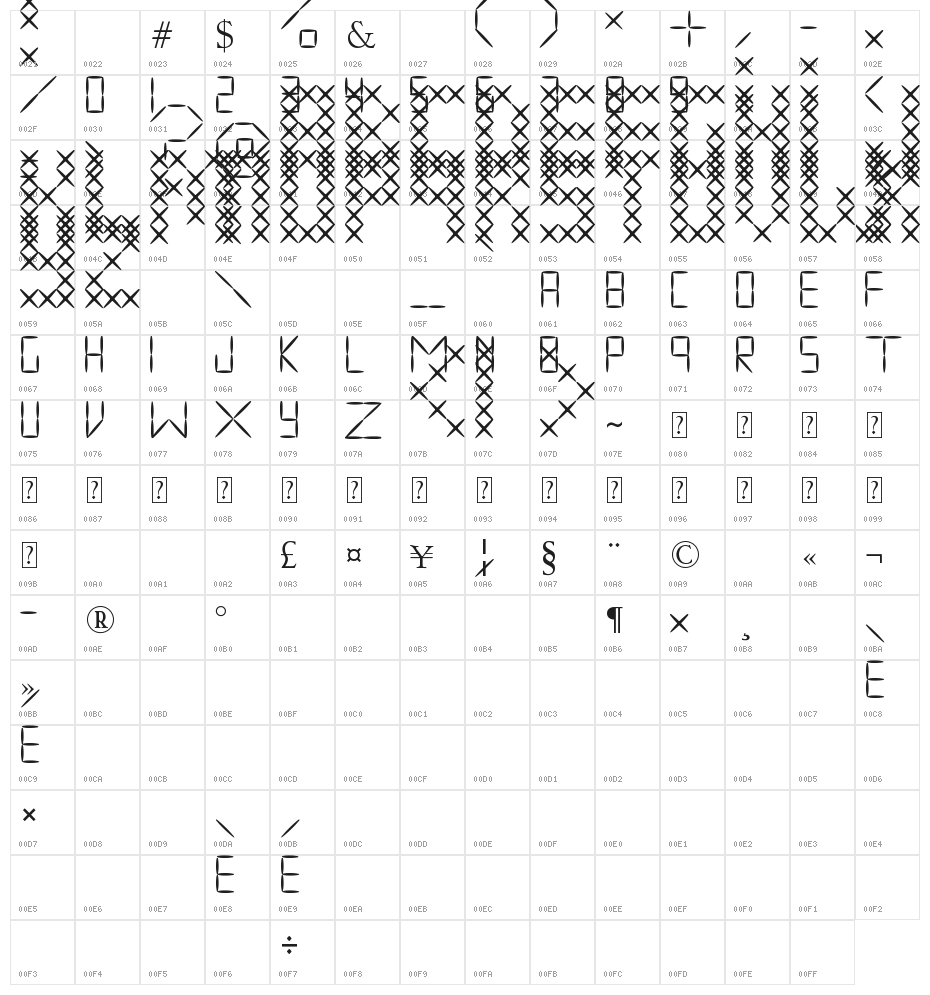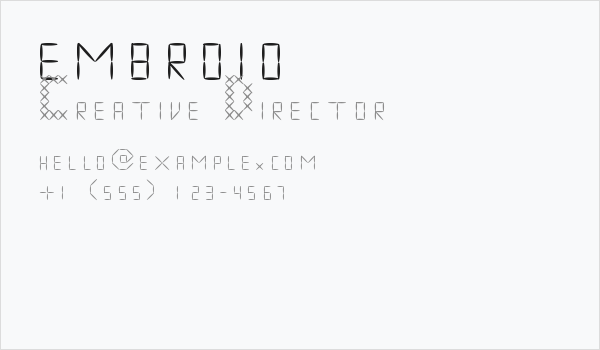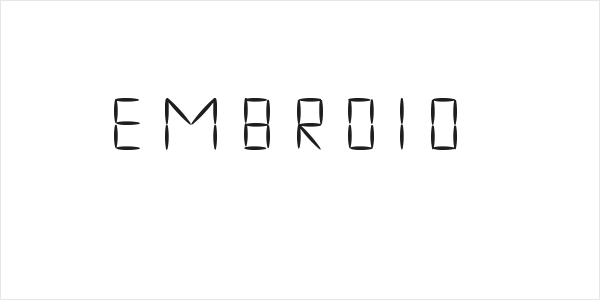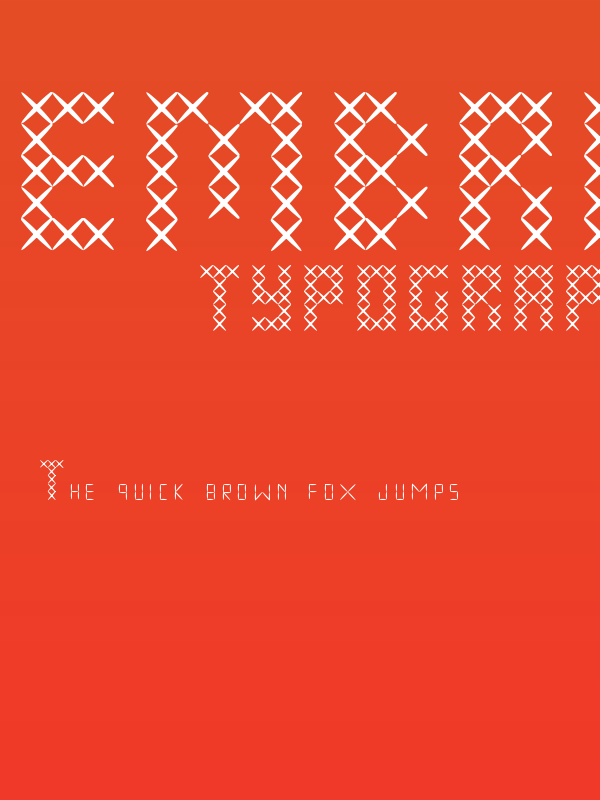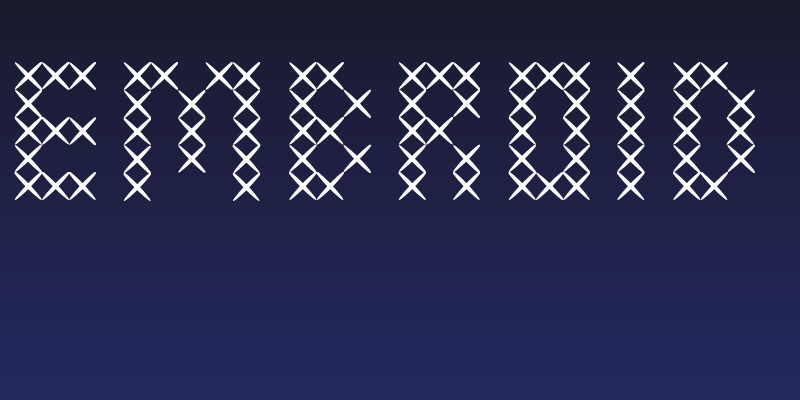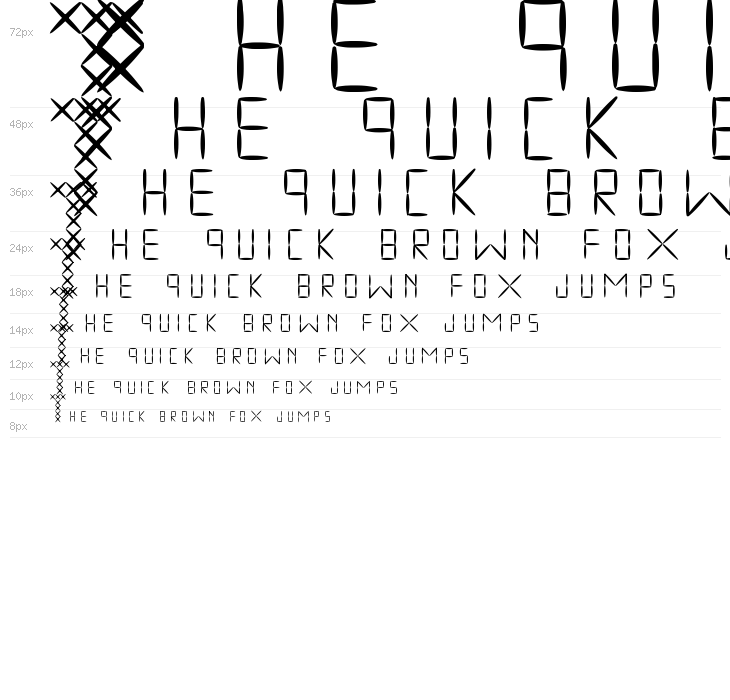
embroid Font
✎ Decorative
| Categorías | Decorative |
| Caso de uso | Logos, Headlines, Craft projects |
| Proyectos propuestos | Ideal for craft-themed projects, embroidery patterns, handmade product labels, or any design needing a rustic, artisanal touch. |